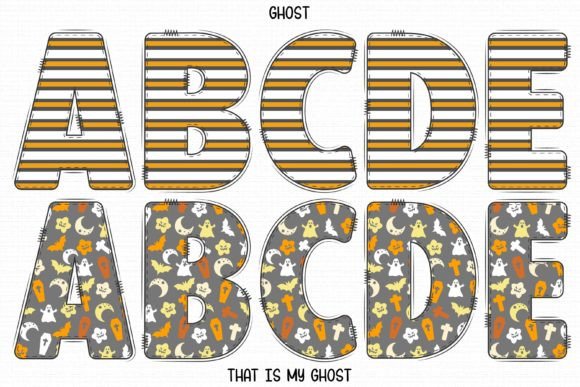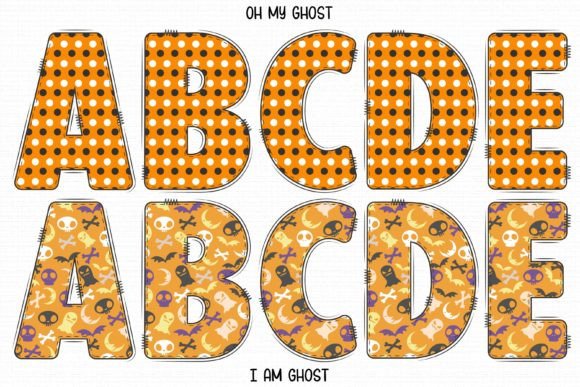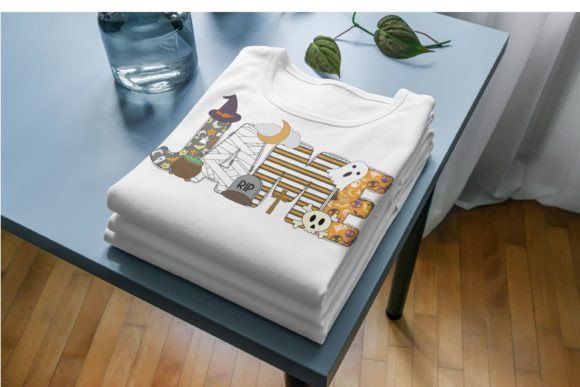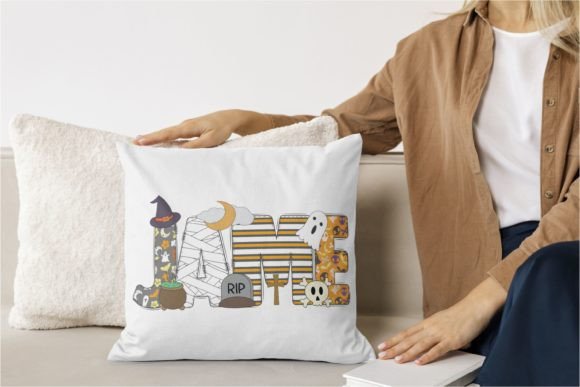
Unleash the Spooky Spirit with Ghost Font: A Halloween-Styled Masterpiece
Are you ready to add a dash of spooky fun to your designs? Look no further than the Ghost Font, a delightful and detailed colored font perfect for Halloween, horror, or cute-themed projects. This versatile font is sure to make your creative ideas stand out and leave a lasting impression.
What is Ghost Font?
Ghost Font is a carefully crafted, Halloween-styled font that combines the eerie and mysterious with a touch of cuteness. Its intricate details and vibrant colors make it an ideal choice for a wide range of design applications, from party invitations and decorations to digital graphics and crafts.
Key Features of Ghost Font
- Halloween-themed design: The Ghost Font boasts a unique and festive design that’s perfect for the spookiest time of the year.
- Detailed and colored: With its intricate details and bright colors, this font is sure to grab attention and add a pop of fun to your designs.
- Versatile compatibility: The black version of Ghost Font is compatible with Cricut Design Space and other cutting machines, making it perfect for crafters and makers.
- Wide range of design applications: Use Ghost Font for Halloween-themed projects, horror-inspired designs, or cute and playful graphics.
Tips and Tricks for Using Ghost Font
To get the most out of Ghost Font, here are some expert tips:
- Experiment with colors: Try out different color combinations to create unique and eye-catching designs.
- Mix and match with other fonts: Pair Ghost Font with other fonts to create interesting and dynamic text styles.
- Use it for party decorations: Create spooky and fun party decorations, such as garlands, banners, and invitations.
- Add it to your digital graphics: Incorporate Ghost Font into your digital graphics, such as social media posts, blog headers, and email newsletters.
Ghost Font is a one-of-a-kind, Halloween-styled font that’s sure to add a touch of spooky fun to your designs. With its intricate details, vibrant colors, and versatile compatibility, it’s perfect for designers, crafters, and makers. Download Ghost Font today and unleash your creativity!